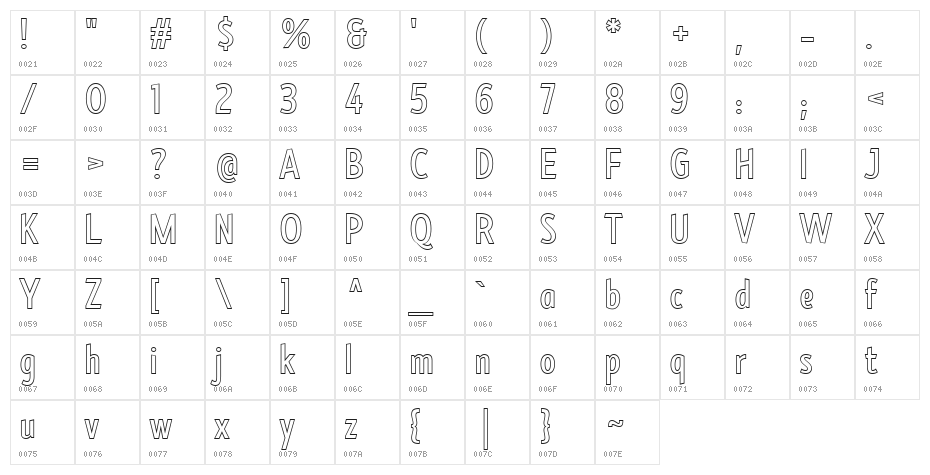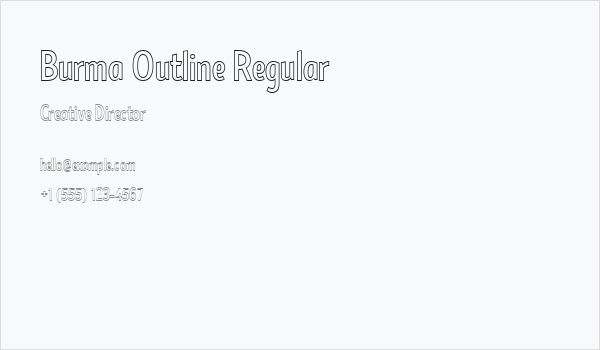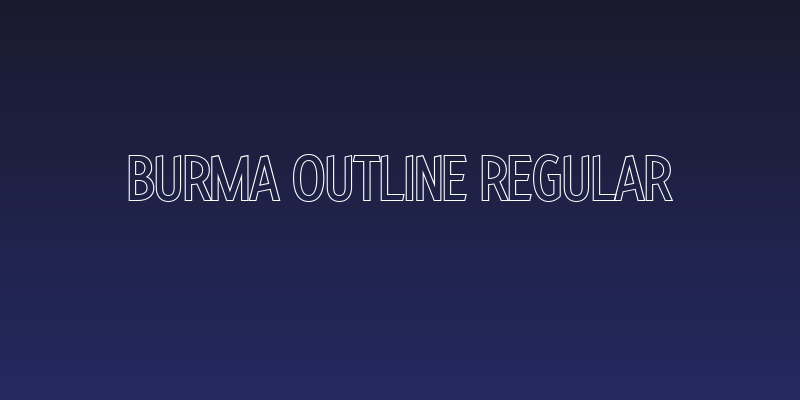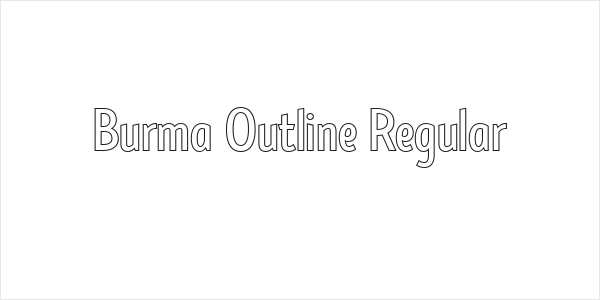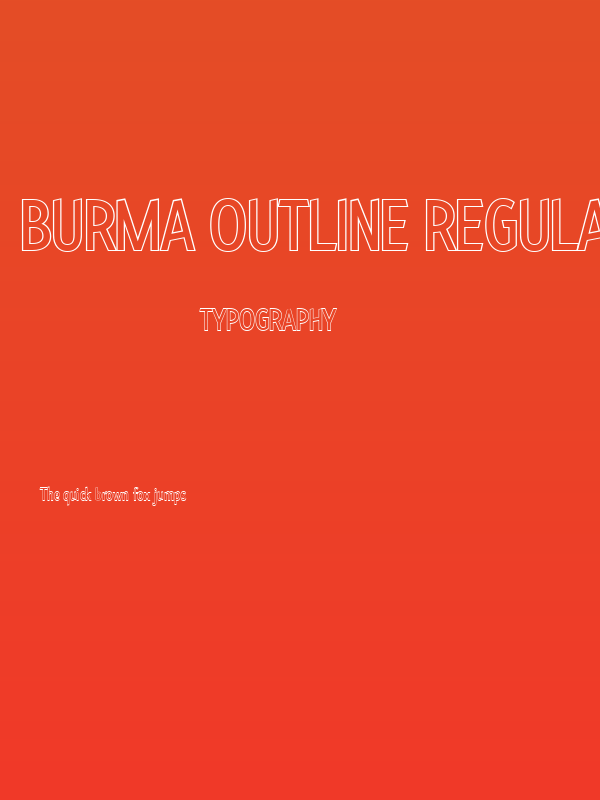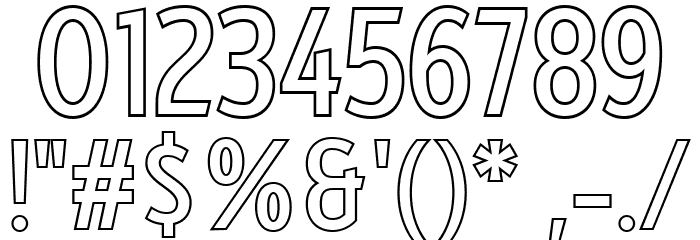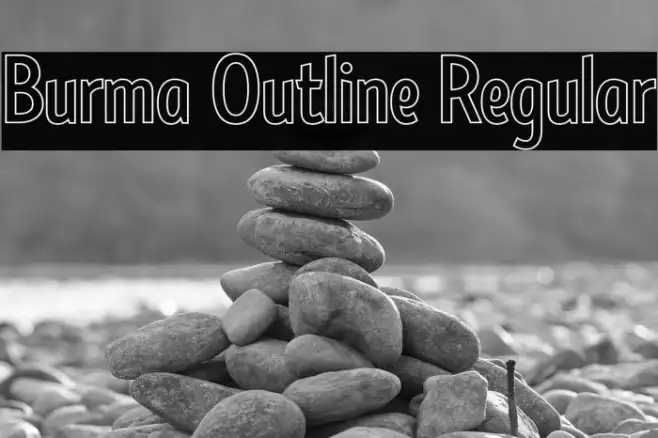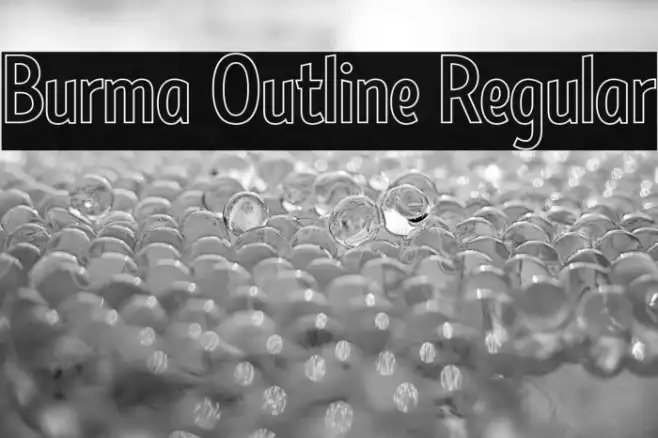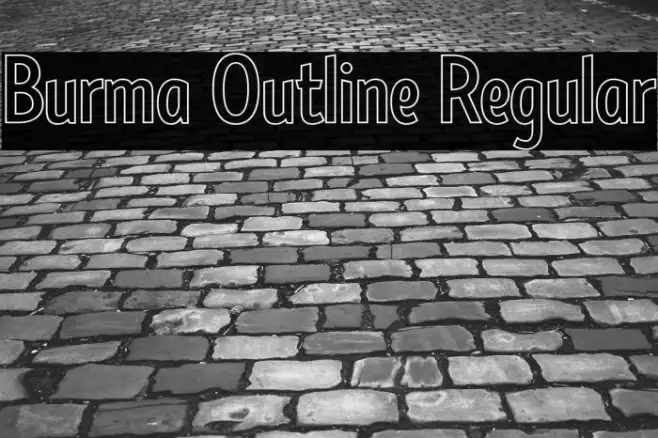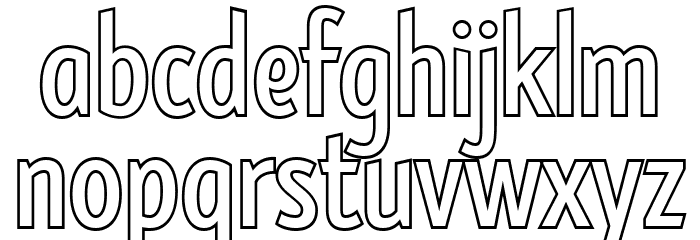
Burma Outline Regular Font
Burma Outline Regular Description
This font features a clean, outlined style with a modern and geometric appearance. The characters are evenly spaced and maintain a consistent line thickness throughout, creating a harmonious and balanced look. The uppercase and lowercase letters are well-proportioned, and the numerals are clear and legible. Special characters are included, adding versatility to the font. Its outlined nature gives it a unique aesthetic, making it suitable for designs that require a contemporary and stylish touch.